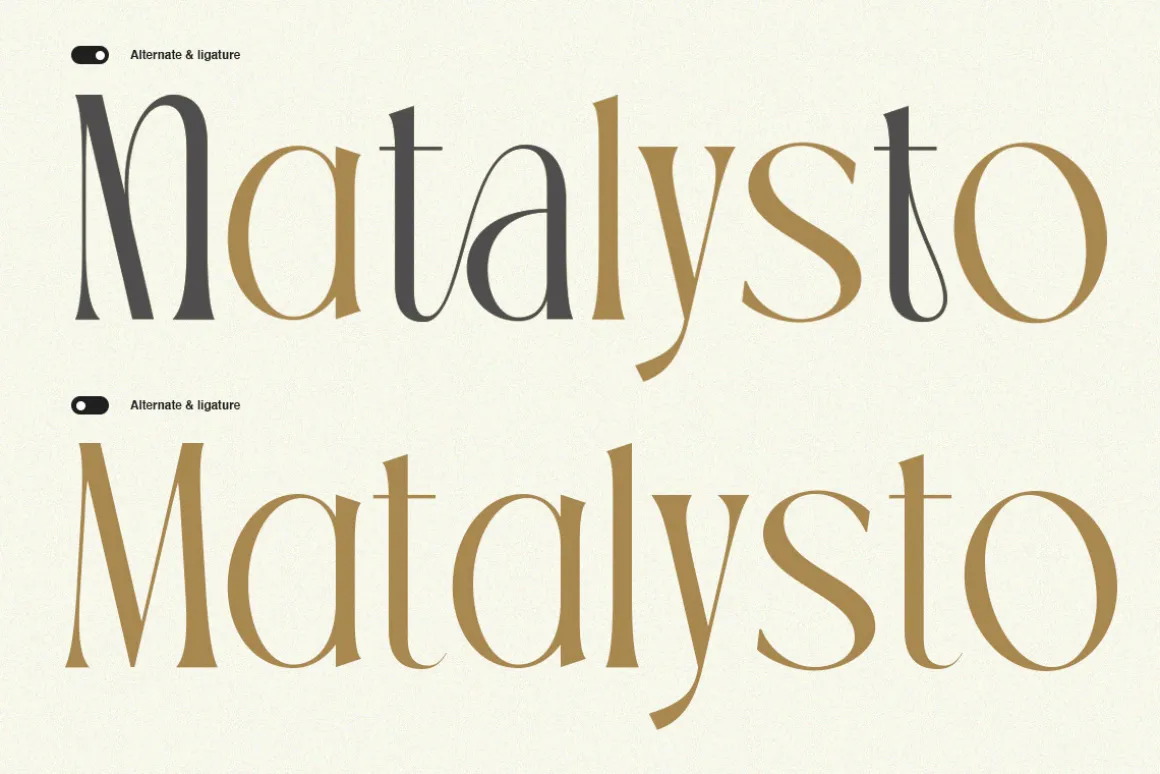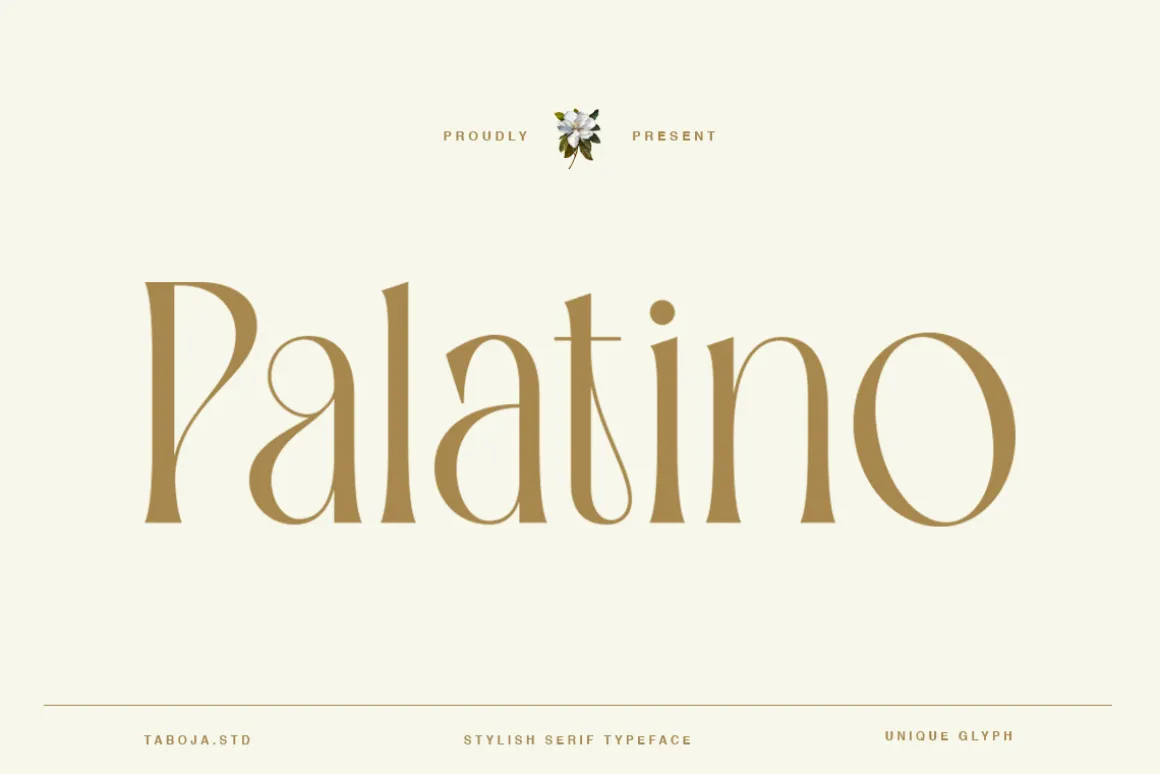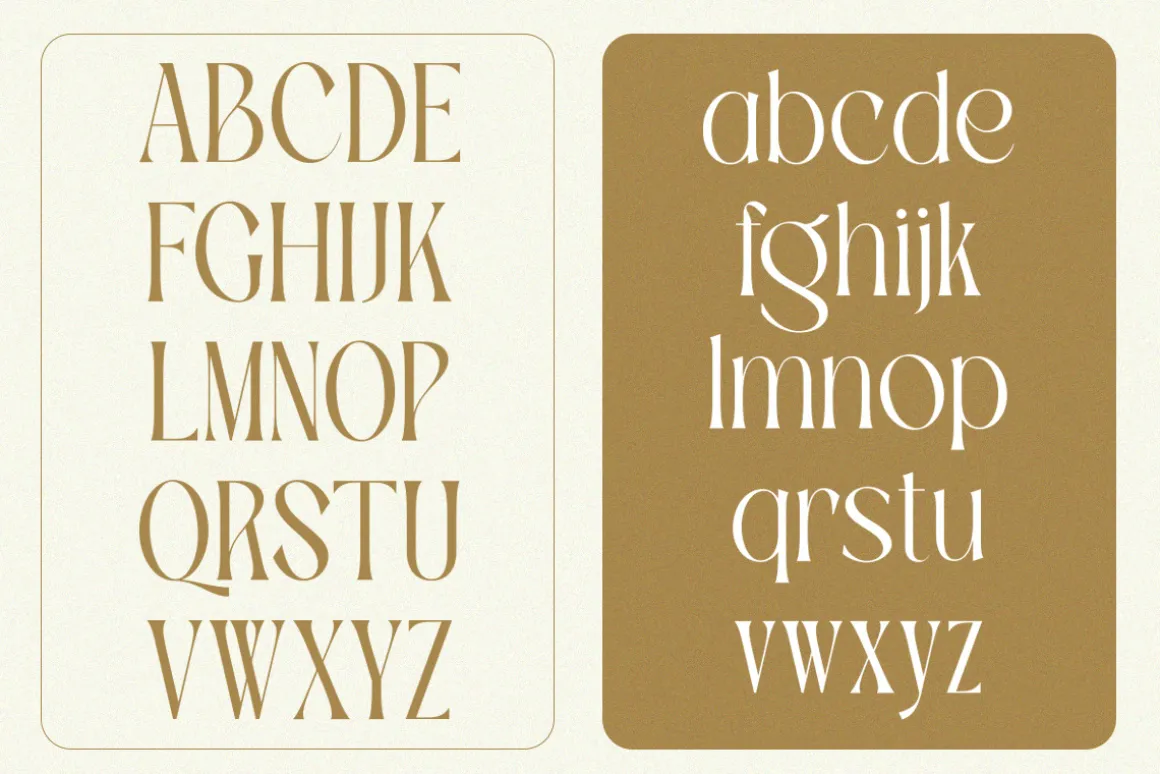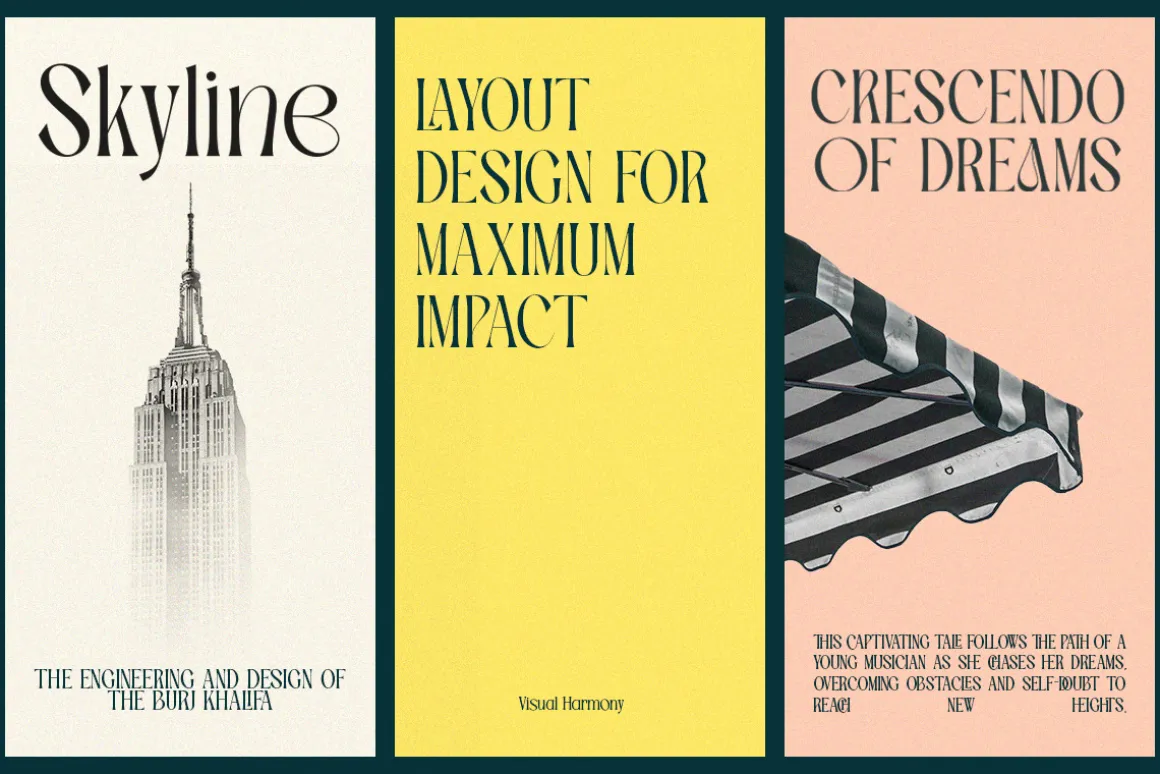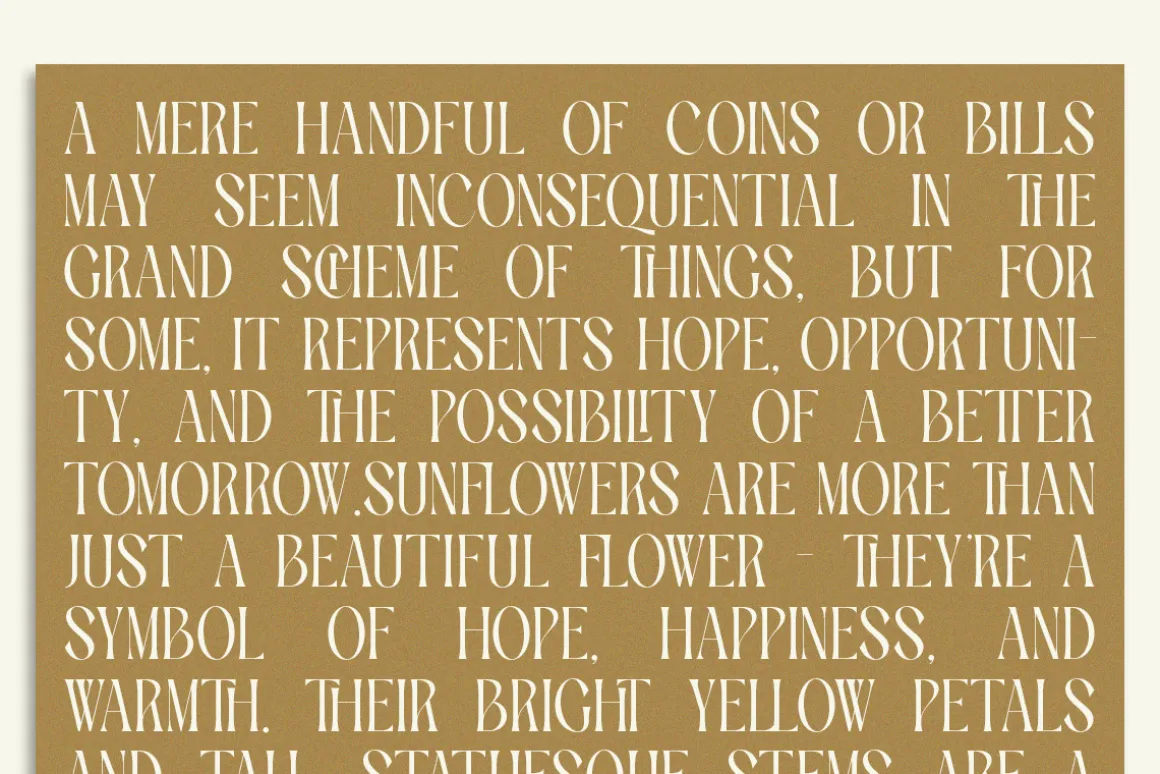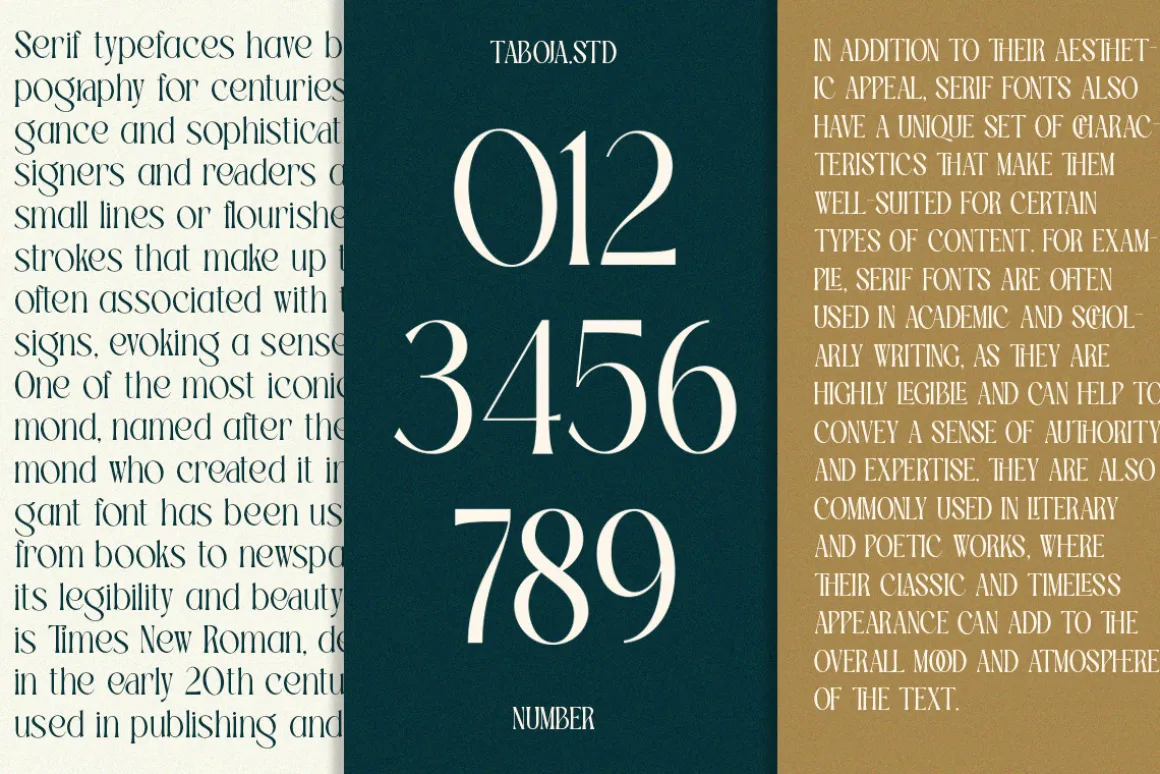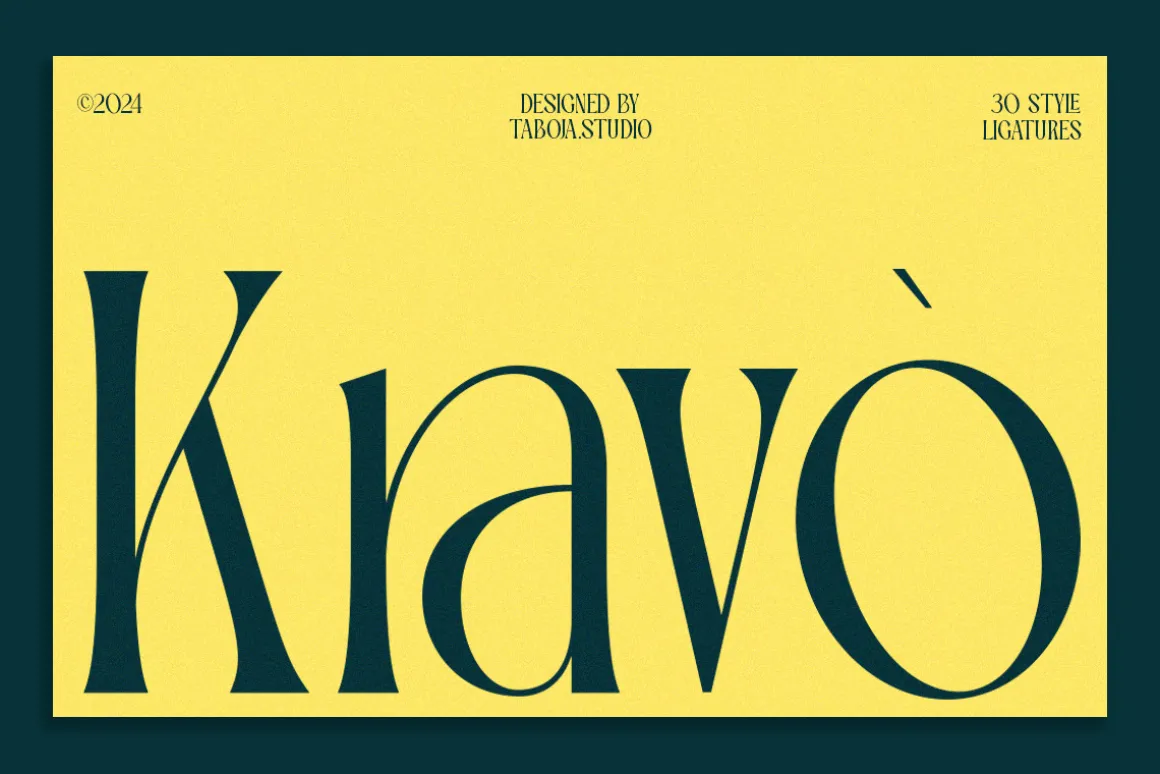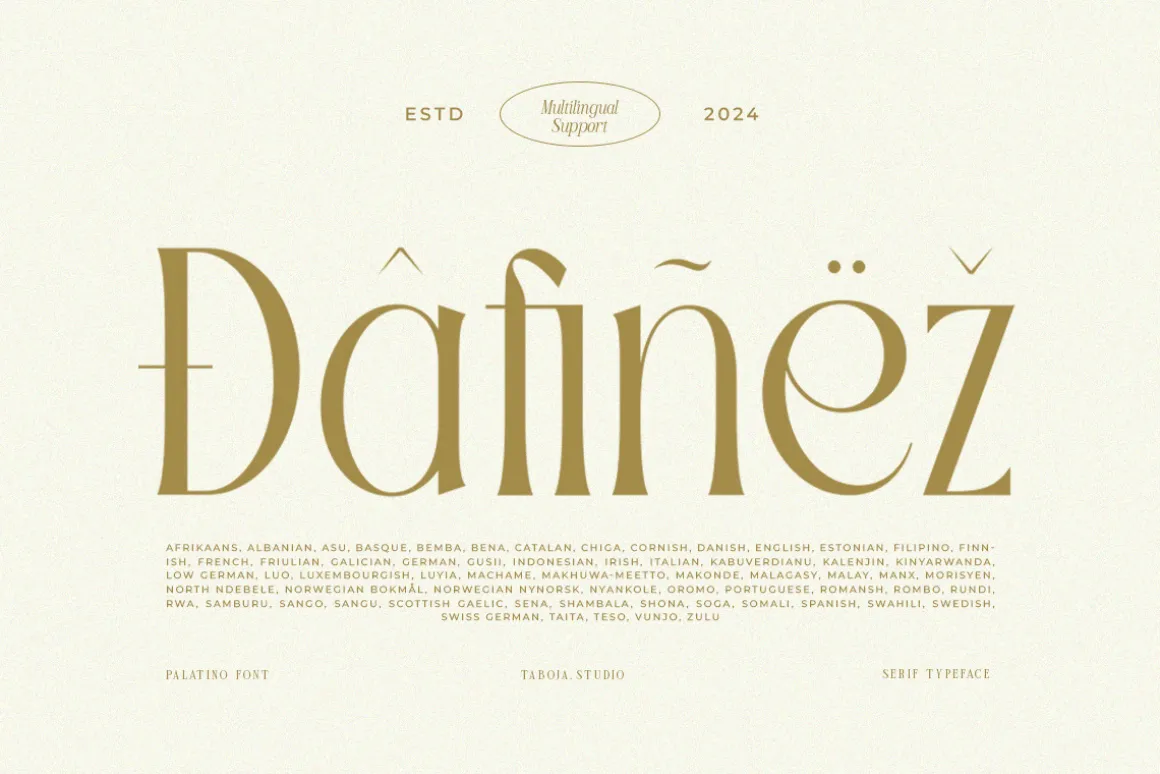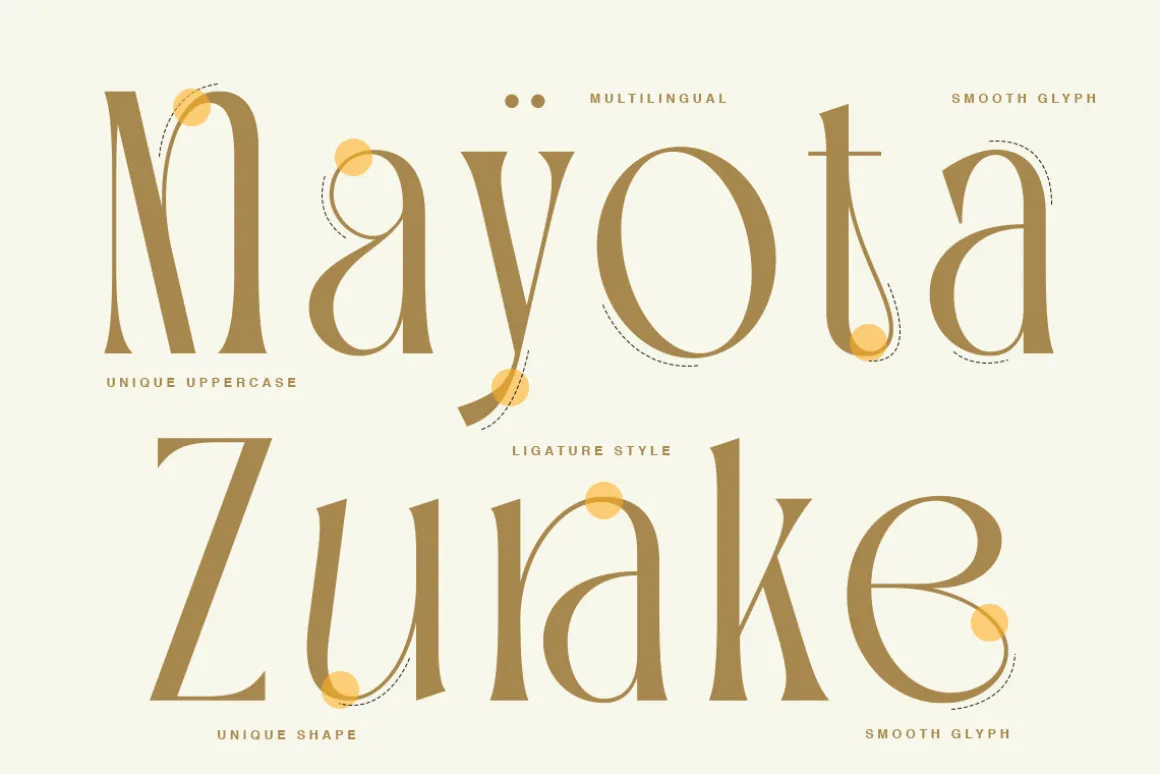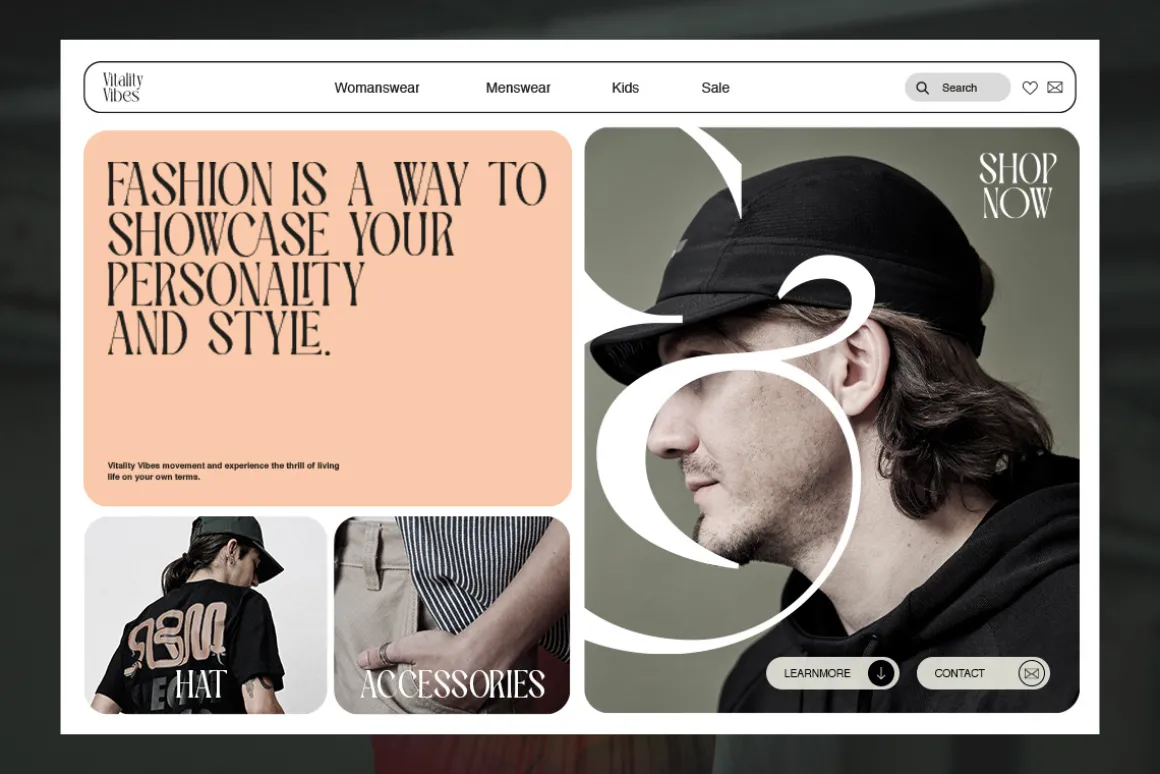
Palatino was born from the desire to create a serif font that combines elegance and simplicity. Inspired by the beauty of classic letterforms, we started by hand-drawing each character. We focused on the fine details of smooth curves and a sleek shape to create a condensed and elegant appearance.
This creative process involved countless hours of hard work and dedication to ensure each letter looked perfect. We aimed to create a font that is not only visually beautiful but also versatile for various design needs. The result is Palatino, a serif font that radiates elegance and the beauty of classic letterforms in every line and curve.